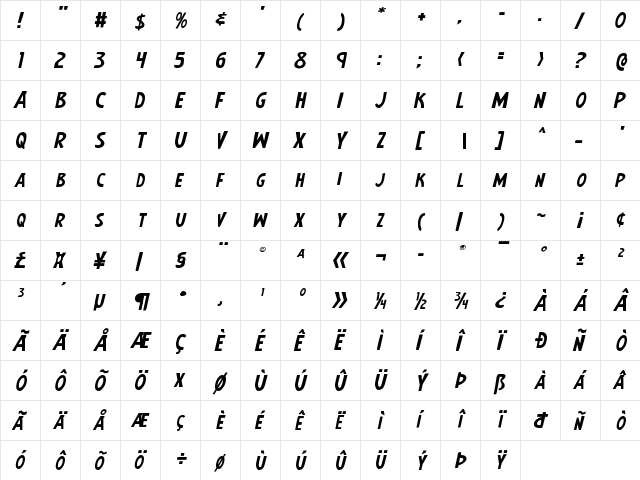
Earth's Mightiest Expanded Italic Expanded Italic
Design Context for Earth's Mightiest Expanded Italic Typeface
Earth's Mightiest Expanded Italic is a composed and adaptable typeface that performs quietly and consistently across a wide range of design contexts. The slanted form adds forward momentum and visual energy.
Pro Tip: Try Earth's Mightiest Expanded Italic for annotation and caption copy alongside an upright companion — the contrast in angle creates a dynamic but ordered typographic system.